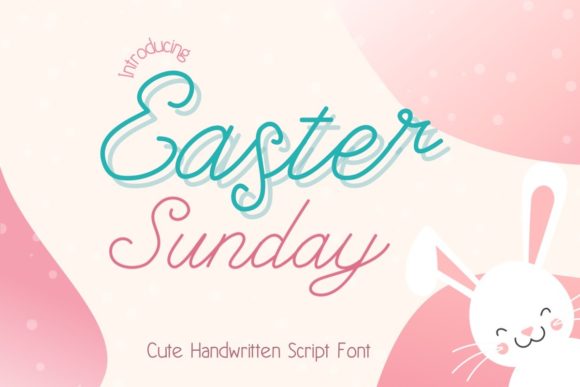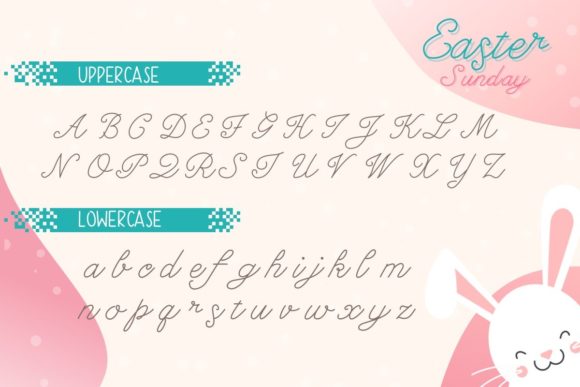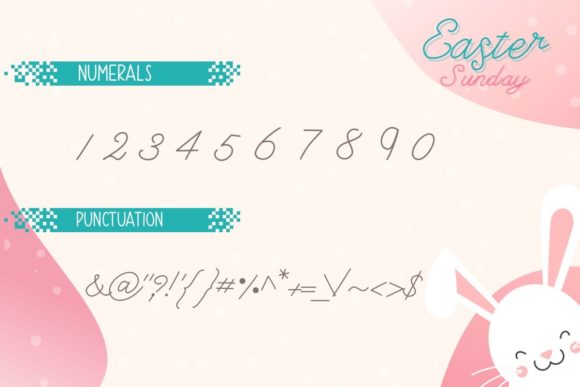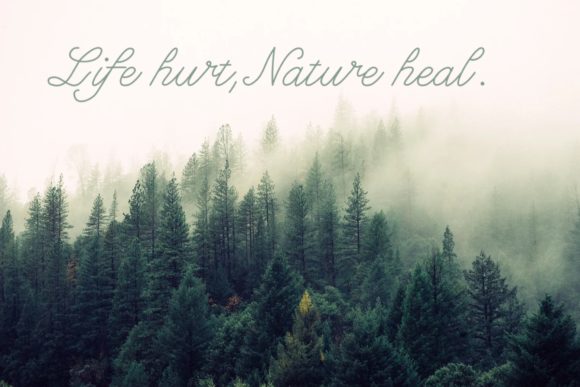
Easter Sunday Font
About Easter Sunday Font
Easter Sunday is a slim handwritten script font. This font is characterized by thin italic characters and continuous lines. You can use it to create valentine card, wedding invitations, beautiful stationary art, social media posts, and much more!